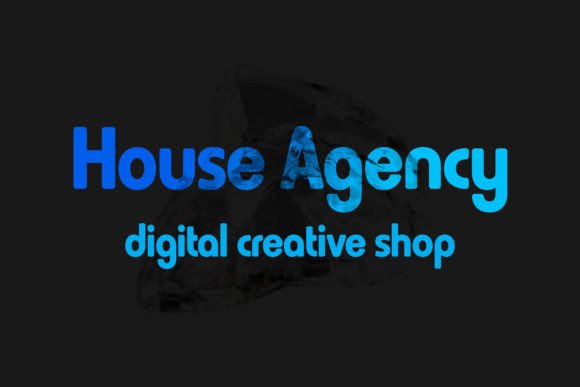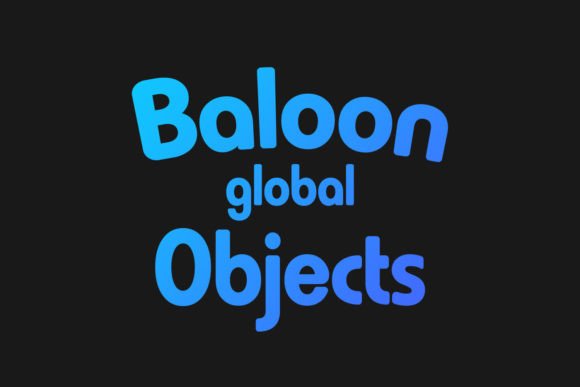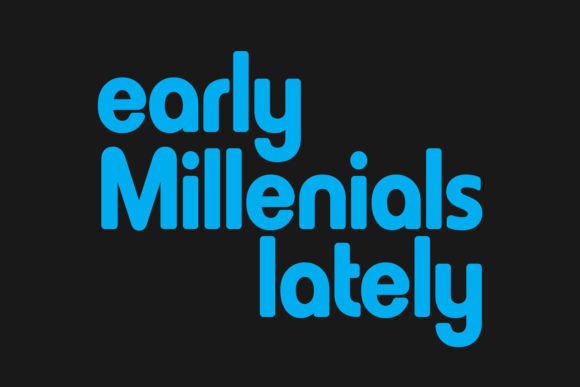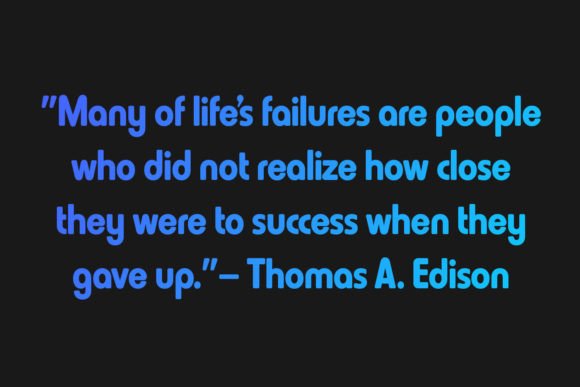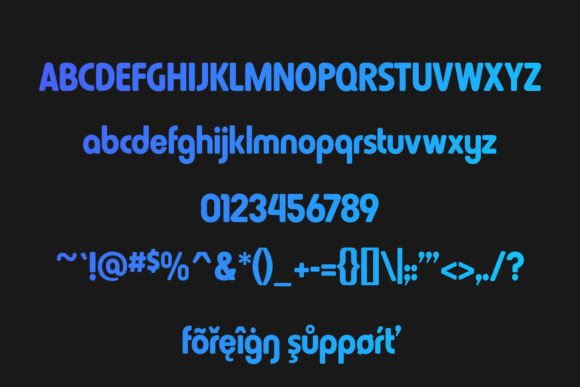
Unlocking the Potential of Morrys Font
Enter Morrys Font, a Neo semi geometric sans display font that’s sure to captivate your audience. With its bold stroke and fun character, Morrys Font is the perfect design resource for creating eye-catching logos, social media graphics, and even movie titles. And with over 100+ languages supported, you can communicate your message to a global audience with ease.
Key Features of Morrys Font
- High-quality design resource with a unique, modern aesthetic, perfect for creative projects.
- Features a transparent background, making it easy to overlay on images or use as a standalone design element.
- Comes in a single size, making it easy to scale and adapt to various design needs.
- Resolution-independent, ensuring crisp and clear rendering on high-resolution displays.
- Designed to be versatile and adaptable, suitable for a wide range of creative projects, from logos to typography.
Honest Review: Morrys Font
- ✨ High-quality typography: Morrys Font has a clean and modern aesthetic that’s perfect for any design project.
- ✨ Transparent background: The font is fully transparent, making it easy to use with any background image or color.
- ⚠️ Limited font styles: While Morrys Font has a few different weights, it’s not as extensive as some other font families I’ve used.
- ⚠️ Not ideal for small text: The font is best used for larger headings and titles, as the thinner weights can be difficult to read in small sizes.
Morrys Font is a high-quality design resource ideal for creative projects requiring a unique and stylish touch. This font offers a transparent background, making it perfect for overlaying text on images.
For optimal results, use Morrys Font in conjunction with a high-contrast background to make the text stand out. Experiment with different font sizes and styles to achieve the desired effect.
Morrys Font is ideal for a variety of design projects, including logos, brochures, business cards, and social media graphics. Its unique design makes it perfect for creative professionals and hobbyists alike.